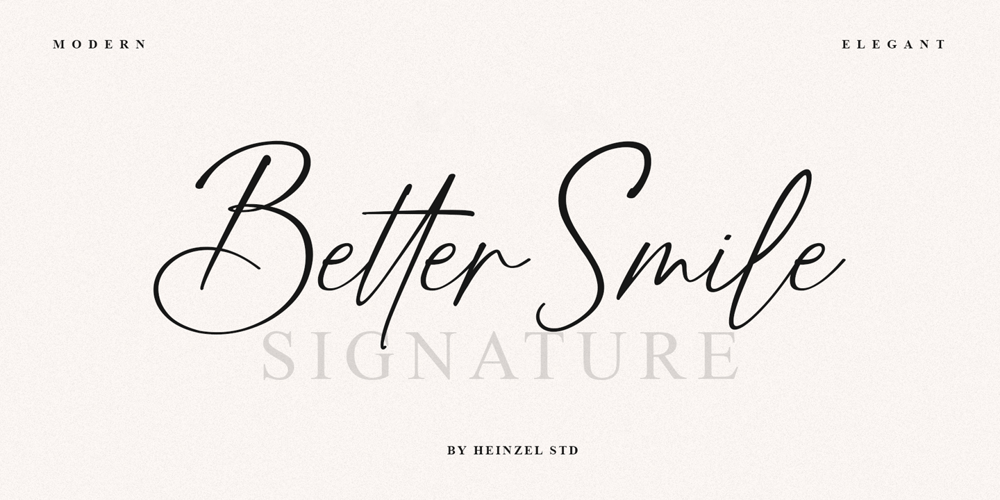
Better Smile Font Family was designed by Nofi Sofyan Hadi and published by Heinzel Std. Better Smile contains 1 styles and family package options. Better Smile Signature is a flowing handwritten font, described by an elegant touch, perfect for your favorite projects. It looks stunning on wedding invitations, thank you cards, quotes, greeting cards, logos, business cards and every other design which needs a handwritten touch. Fall in love with its incredibly distinct and timeless style and use it to create spectacular designs!Better Smile Features : Uppercase and Lowercase Numerical and Punctuation Ligatures PUA Encoded Multilingual Support